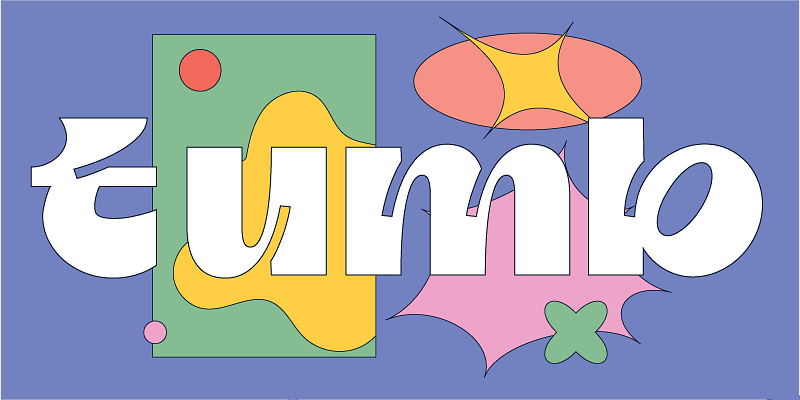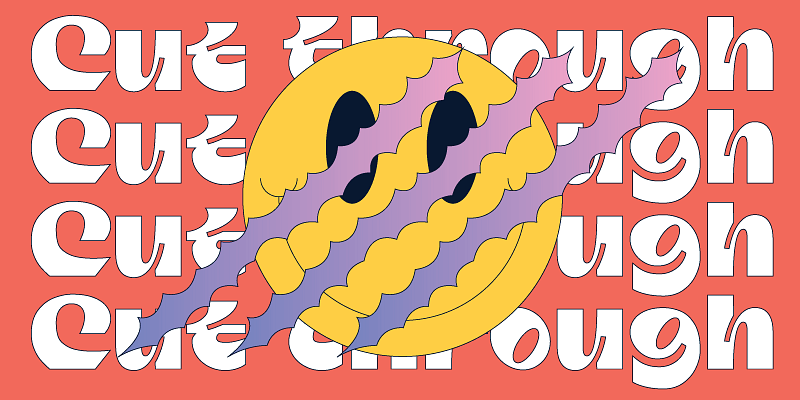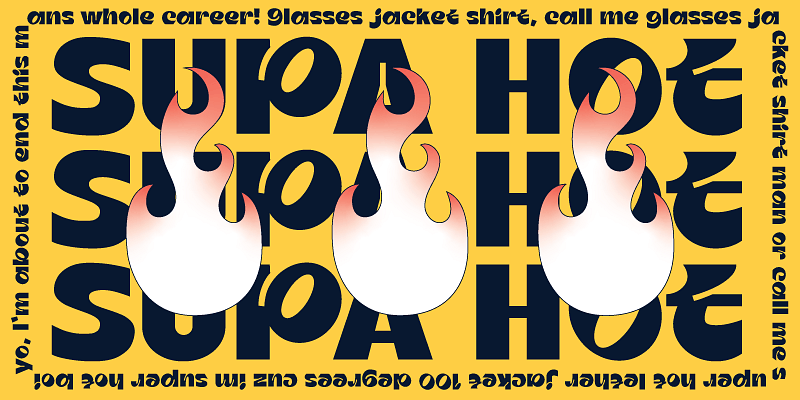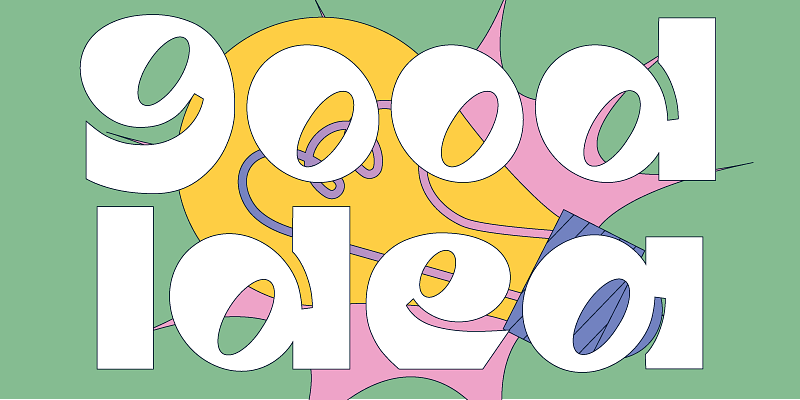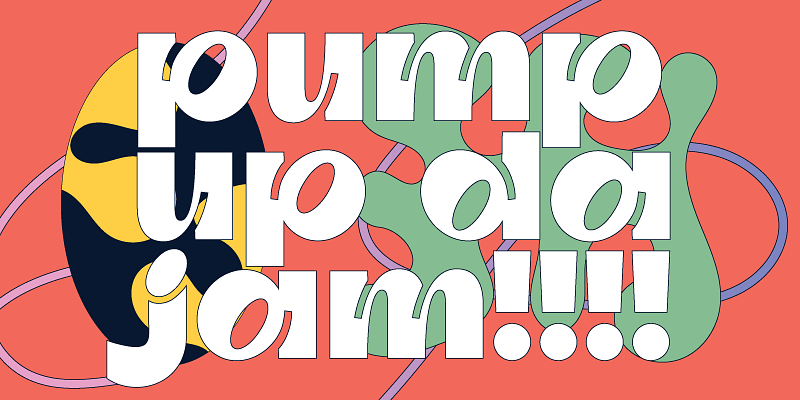
Tumb is a modern quirky display sans serif type that is super bold and perfect for headlines. It is playful and fun. With Bubbly curves and exaggerated ink traps Tumb says it best in a big type size.